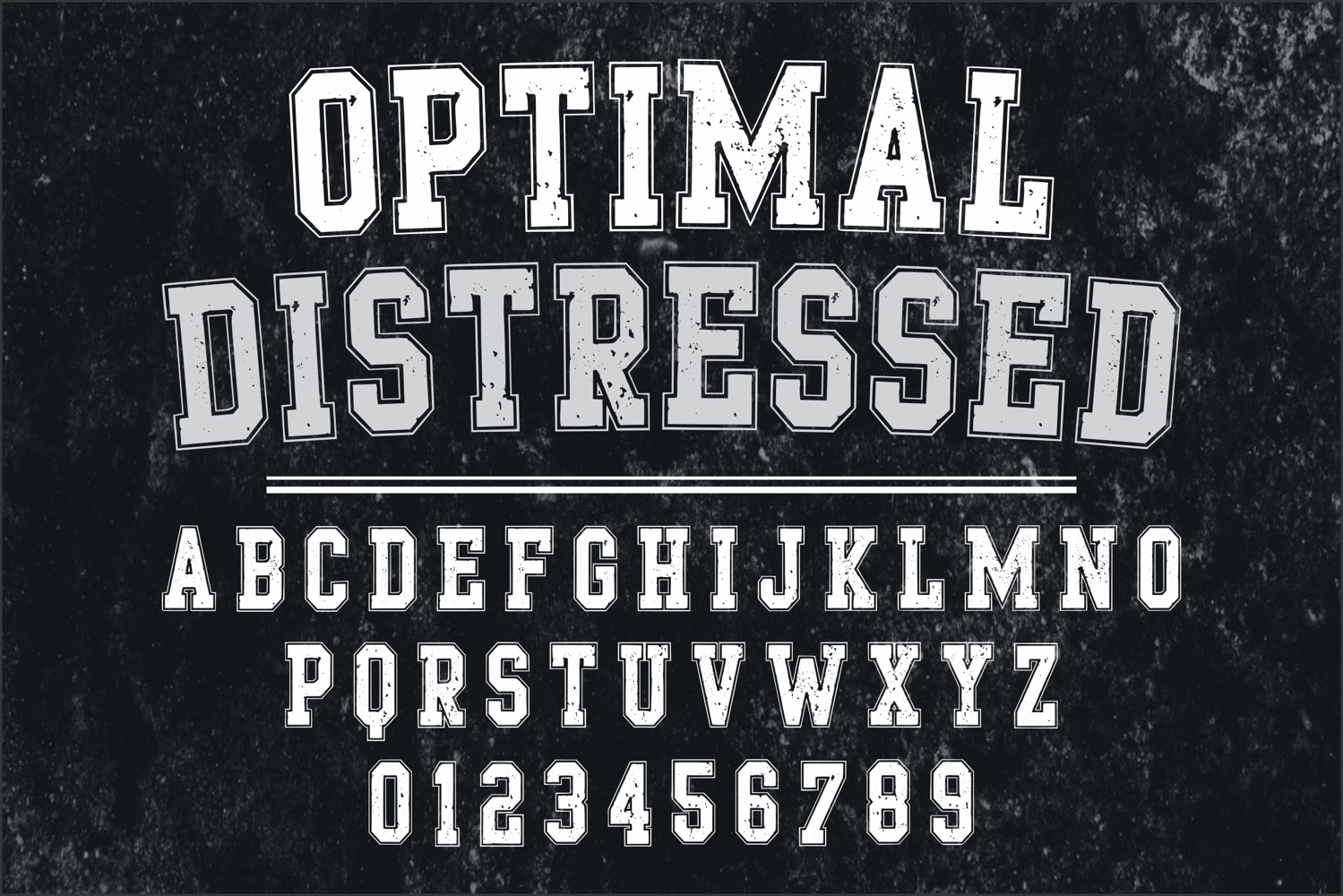
Optimal Distressed
Optimal Distressed is an authentic grunge distressed classic display font, inspired by college typography. This bold and dynamic font captures the energy and excitement of sports. It features a strong and commanding look, with thick lines and sharp edges that convey power and athleticism.
Optimal Distressed